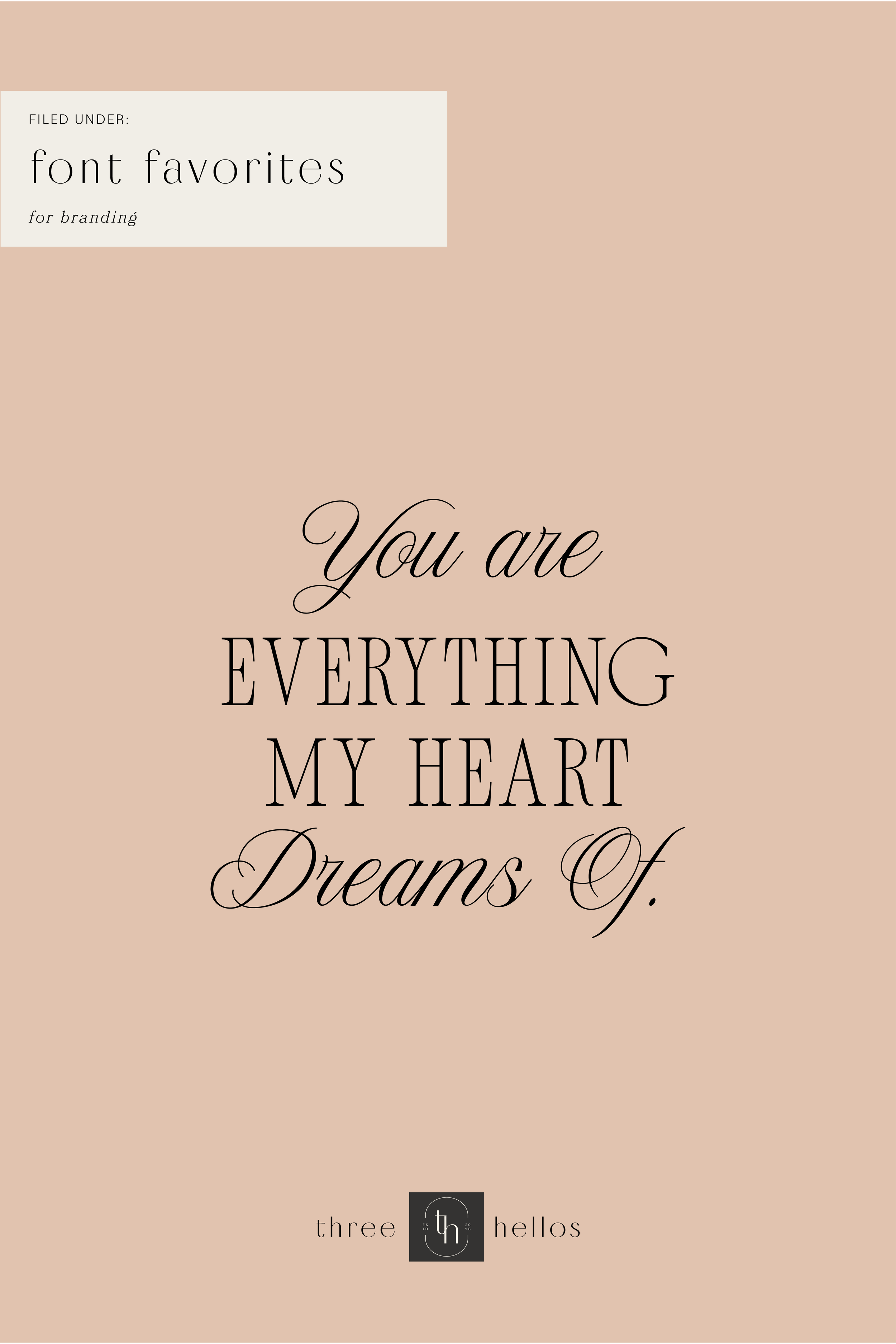
I love when a font is a duo. This month’s font is just that. Meet ‘New Icon’ a gorgeous serif and script font duo from the genius fontmaker, Sam Parrett. Sam owns Set Sail Studios. I’m a huge fan of his work and this new release was added to my extensive font library immediately upon release.
This luxury script and timeless serif are perfectly designed for one another-not only are they strong standalone fonts, but will pair beautifully when placed side by side. Feeling creative? They can even be mixed together within the same word for a more eye-catching layout, giving you a versatile set of fonts which can be used & loved across a range of design projects.
Here are a few graphics that utilize some of the fonts from my list so you can get a better visual and feeling for them. Pay attention to how they feel. Are they in line with your style?
New Icon - Script and Serif Font Duo for Branding and Marketing Design